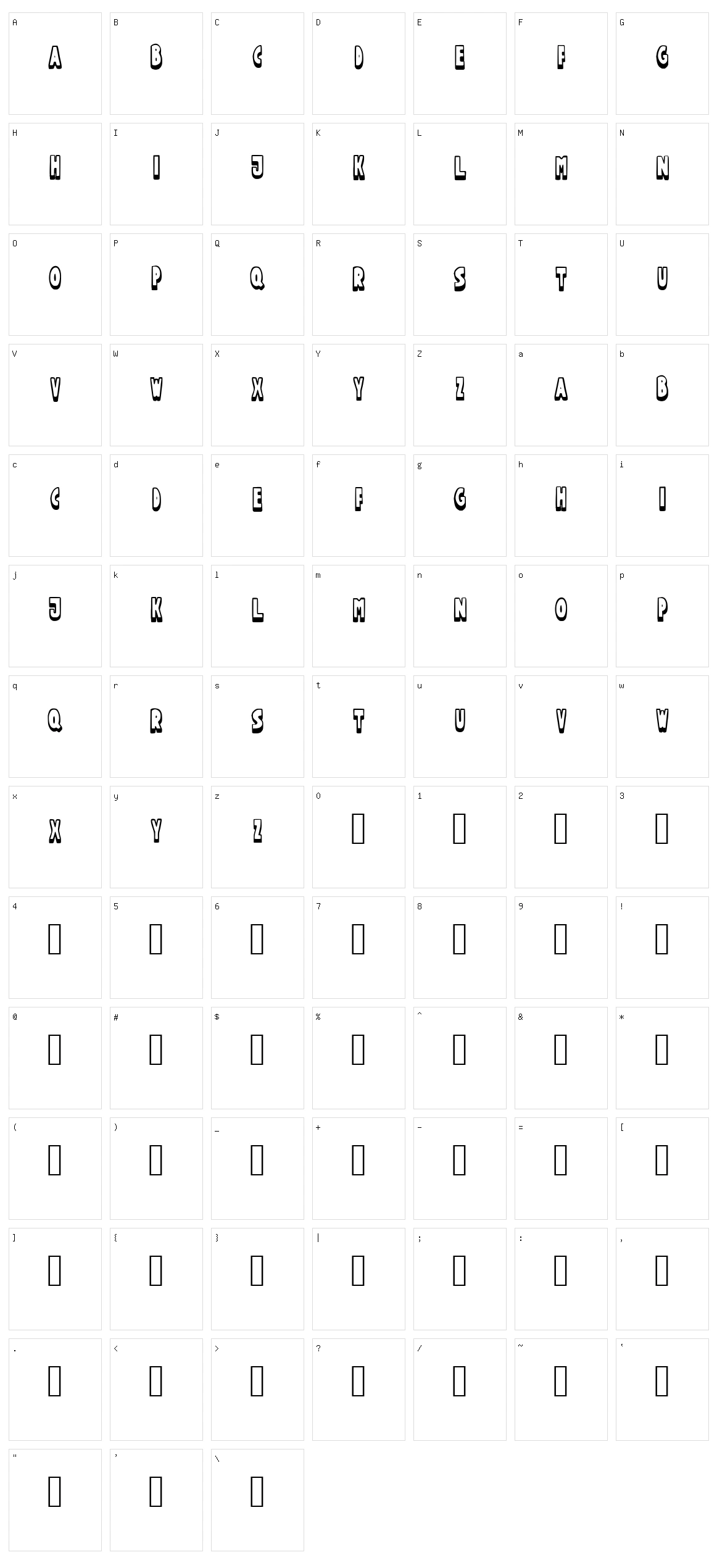
The free font Funtle Caps is carefully designed by MrtheNoronha, showcasing a thoughtful balance of creativity and usability and falls under the Cartoon font style. When you download the ZIP file, it contains only 10.29 KB of font files, making it lightweight and quick to download. Please review the license details below to understand permitted usage and distribution rights. If license information is not available, we recommend using this font for personal projects only or contacting the author directly for commercial usage permissions.